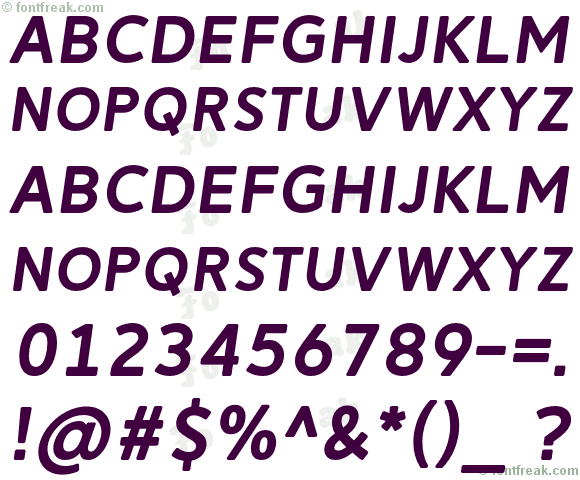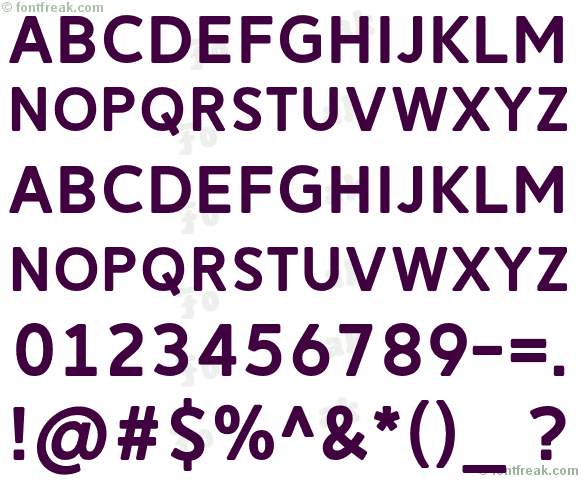
Reitam
Reitam-Italic
Reitam, designed by Situjuh Nazara in 2017, is a striking sans-serif font that seamlessly blends modernity with a touch of elegance. This font features a balanced stroke weight, characterized by smooth, clean lines that convey clarity and sophistication. The subtle contrast in the letterforms enhances its visual appeal while maintaining readability, making it suitable for a range of applications. The spacing is thoughtfully designed to facilitate legibility, whether viewed on digital platforms or in print.
Reitam's versatility makes it an excellent choice for various use cases. Graphic designers often turn to this font for branding projects, as its contemporary look can effectively represent businesses in creative industries. Additionally, it is ideal for restaurant menus, where clarity and aesthetic appeal are paramount. Wedding invitations benefit from Reitam's stylish yet approachable nature, providing a modern twist to traditional typography. Furthermore, content creators can use this font for social media graphics, ensuring that their messages are conveyed with both elegance and impact.
What truly sets the Reitam font apart is its ability to fuse simplicity with sophistication. It stands out as a modern typeface that offers a unique visual identity while remaining versatile enough for various design needs. For those interested in enhancing their typographic selections, a Reitam font free download is an opportunity to explore its potential in creative endeavors.